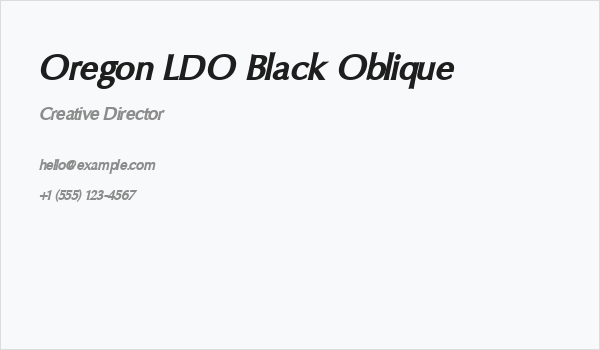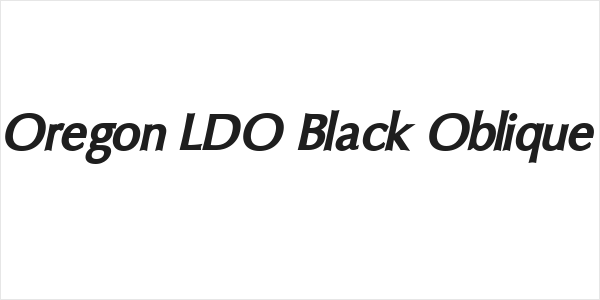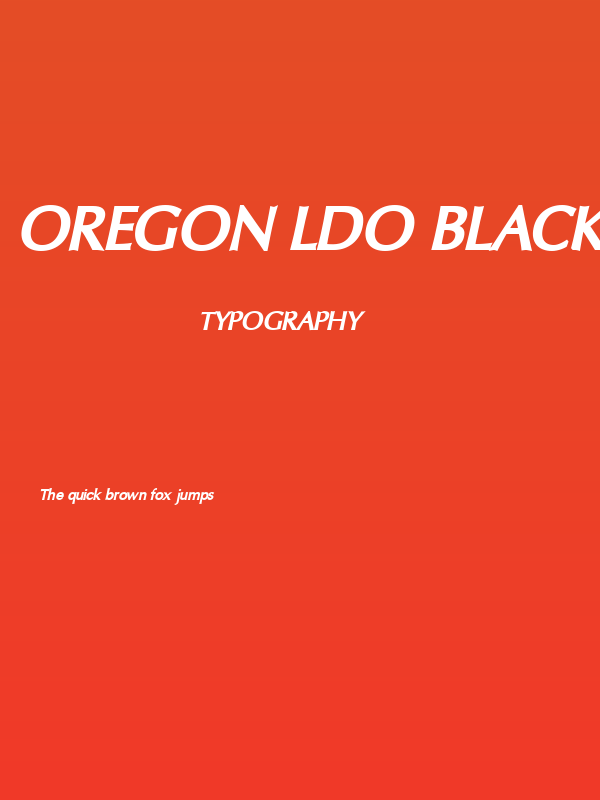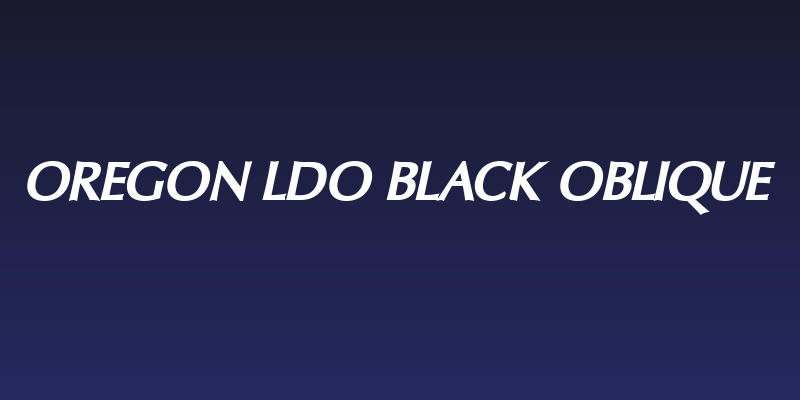
Oregon LDO Black Oblique Font
Oregon LDO Black Oblique Description
This font features a bold and oblique style, characterized by its strong and dynamic slant. The uppercase and lowercase letters are designed with a consistent angle, giving a sense of movement and urgency. The numerals and special characters maintain this slant, ensuring uniformity across all glyphs. The strokes are thick, providing a robust appearance, while the overall design remains clean and legible. This font's boldness and slant make it stand out, perfect for applications that require a strong visual impact.